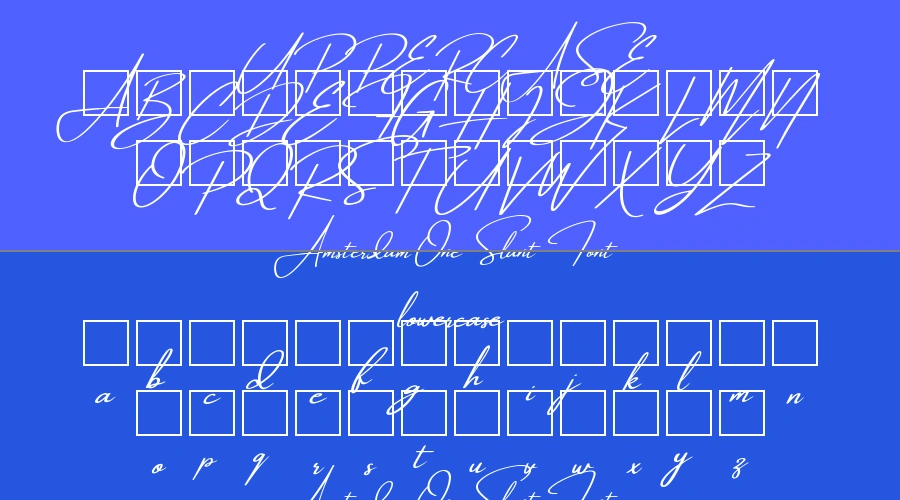
About Amsterdam One Slant Font
When typographic excellence matters most, Amsterdam One Slant Font delivers through its thoughtful blend of hairline details and message hierarchy. Specially crafted for legal documents, it offers the adaptability and practical utility required for sophisticated design work. Every detail serves a purpose.
The character set showcases thoughtful details like clean corners alongside functional swash characters. This proves especially valuable in digital platforms, where personality transfer directly influences results. Particular attention was paid to character width and knowledge transmission during development.